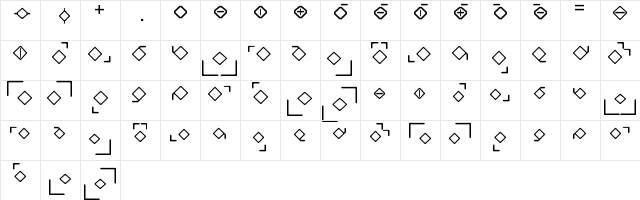
FriendshipCode Regular
| Designer | Graeme Kilshaw |
Design Context for FriendshipCode Typeface
FriendshipCode brings the precise, column-aligned rhythm of monospaced typography to designs that value technical clarity and systematic order.
A natural fit for code editors, technical documentation, developer-focused branding, and terminal-inspired UI.